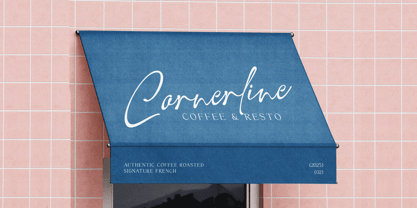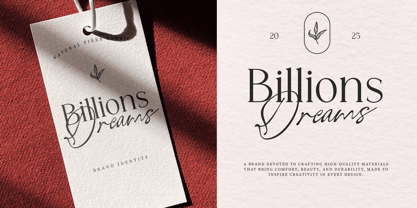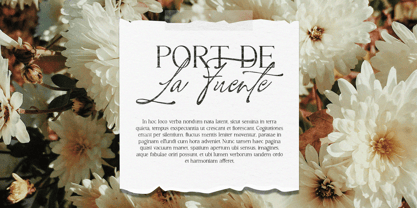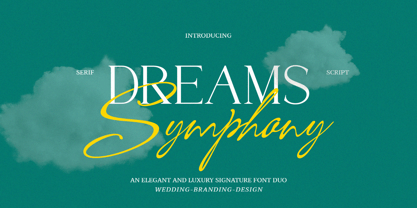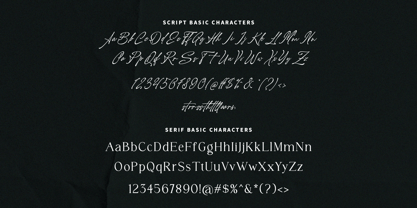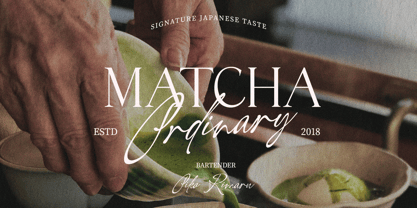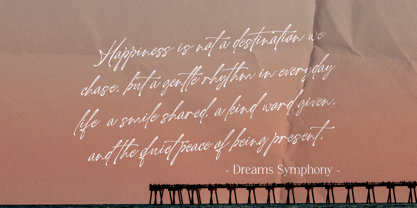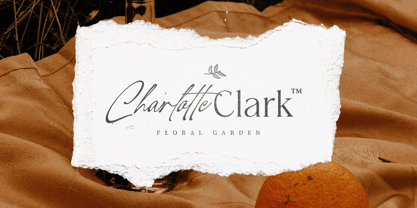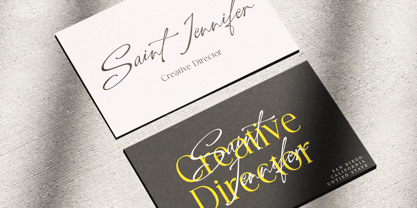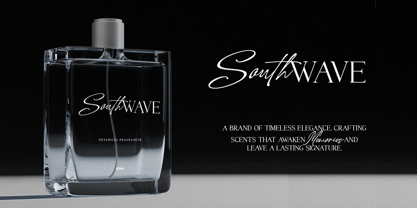
Dreams Symphony
by HKL Studio
The Dreams Symphony Font Family was designed by T Haikal Budillah and published by HKL Studio. Dreams Symphony contains 2 styles and family package options. More about this family
Introducing Dreams Symphony, a harmonious font duo crafted to bring elegance and versatility to your creative projects. This duo features two complementary styles: Signature Script – A graceful handwritten style with smooth strokes, giving a natural and personal touch, perfect for names, signatures, and branding accents. Serif Typeface – A classic and refined serif with strong shapes and timeless character, designed for readability and professional use. Together, they form a perfect pair—blending softness and strength, artistry and clarity. Dreams Symphony works beautifully for logos, invitations, stationery, social media, packaging, magazines, and more. With this duo, you don’t just design—you compose a visual symphony of elegance and dreams.
Designers: T Haikal Budillah
Foundry: HKL Studio